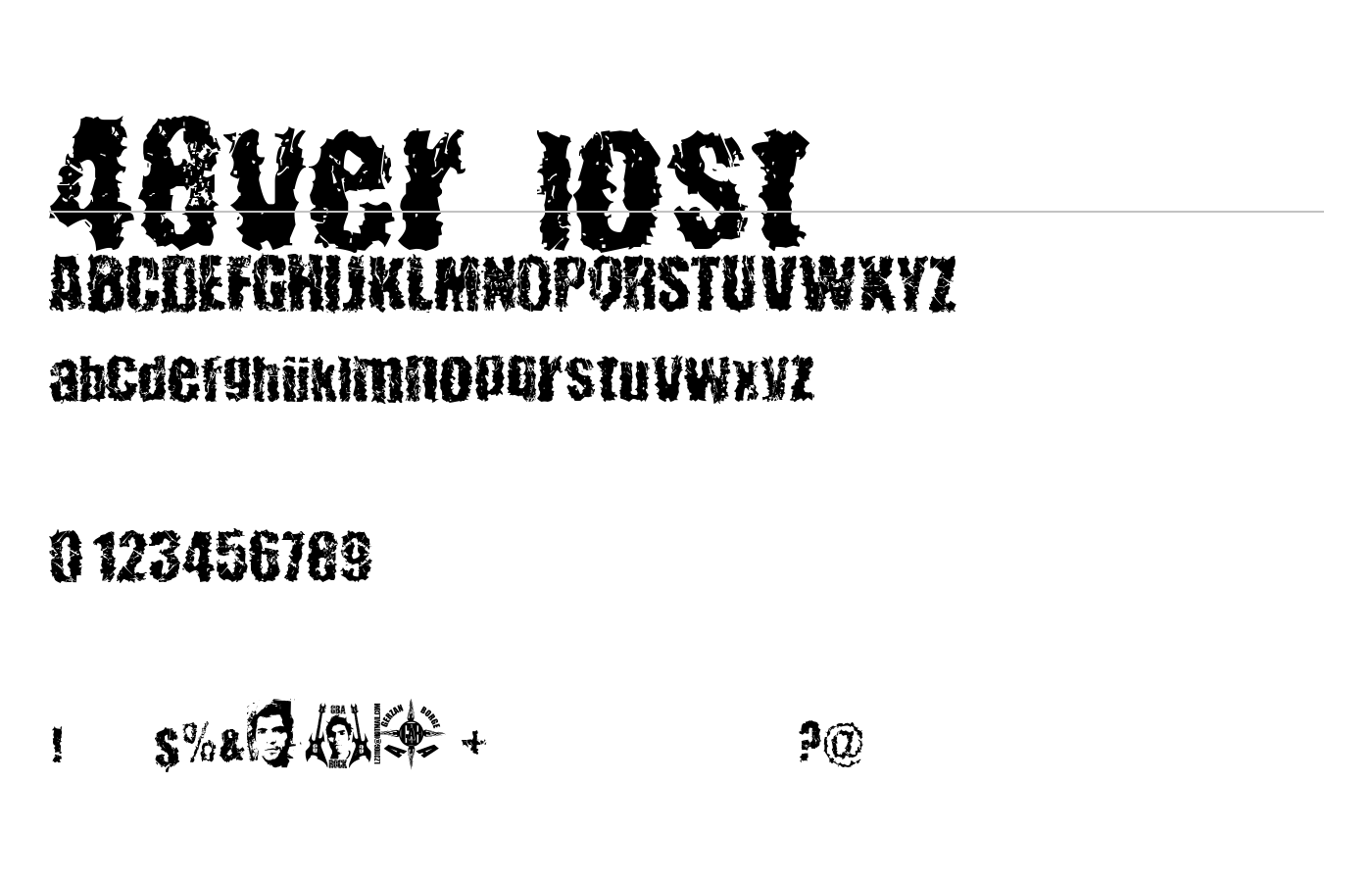
48ver lost is a bold, condensed sans serif font with a distressed, grungy texture that creates a rough, edgy appearance. Its irregular, highly textured letterforms evoke a rebellious, urban vibe, making it ideal for bold headlines, poster designs, and branding that aims to capture a raw, underground aesthetic. This font works best where a striking, unconventional look is desired, adding strong character and visual impact to creative projects.
48ver lost Font